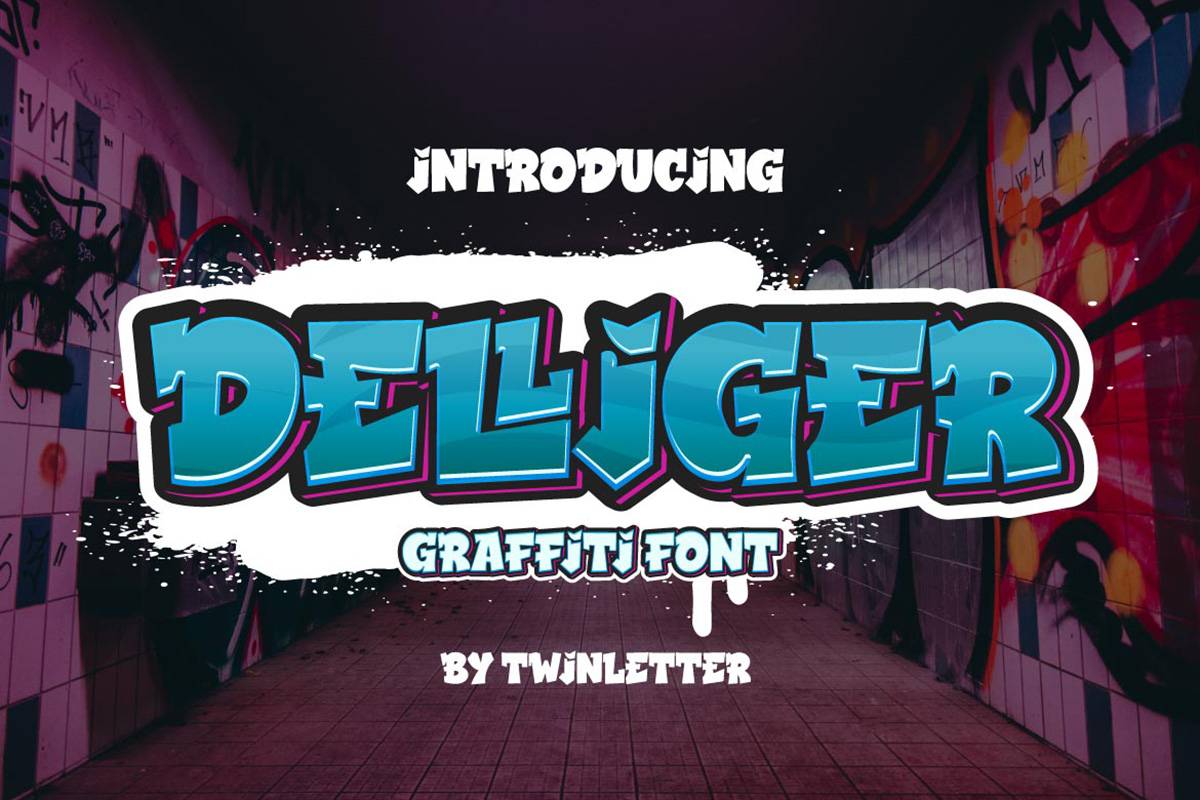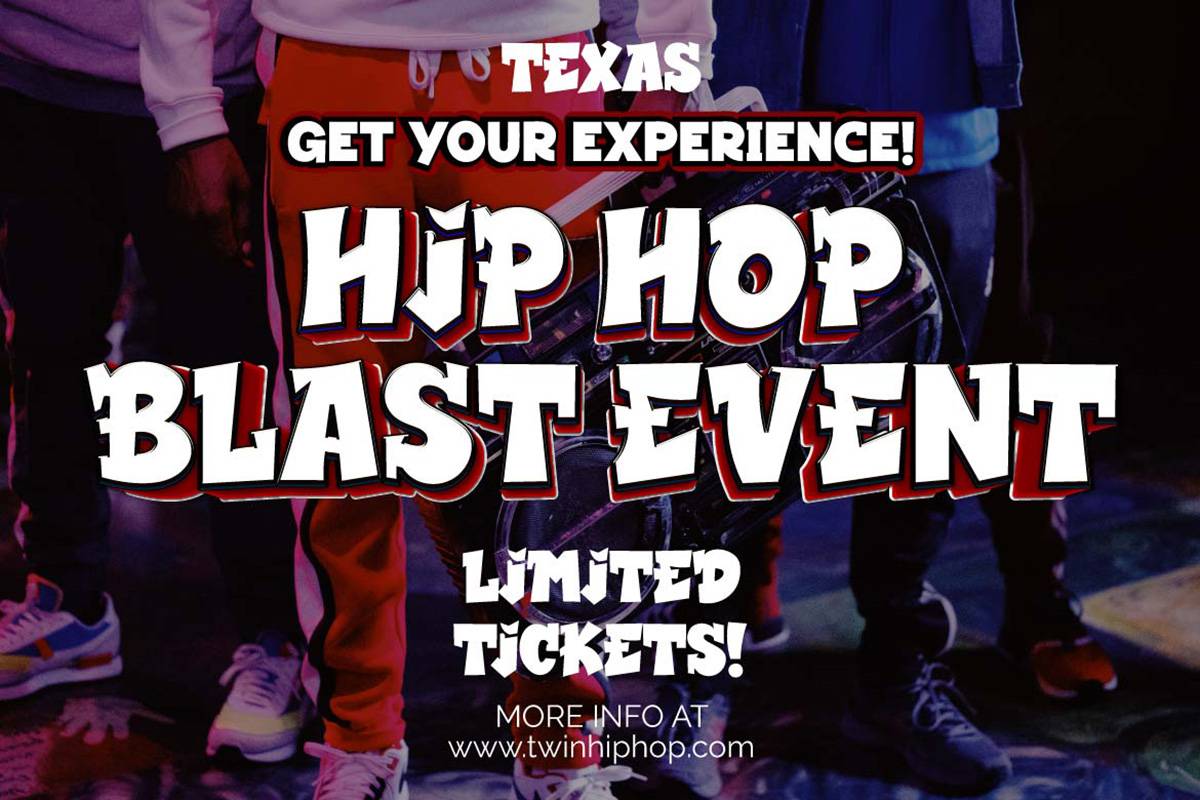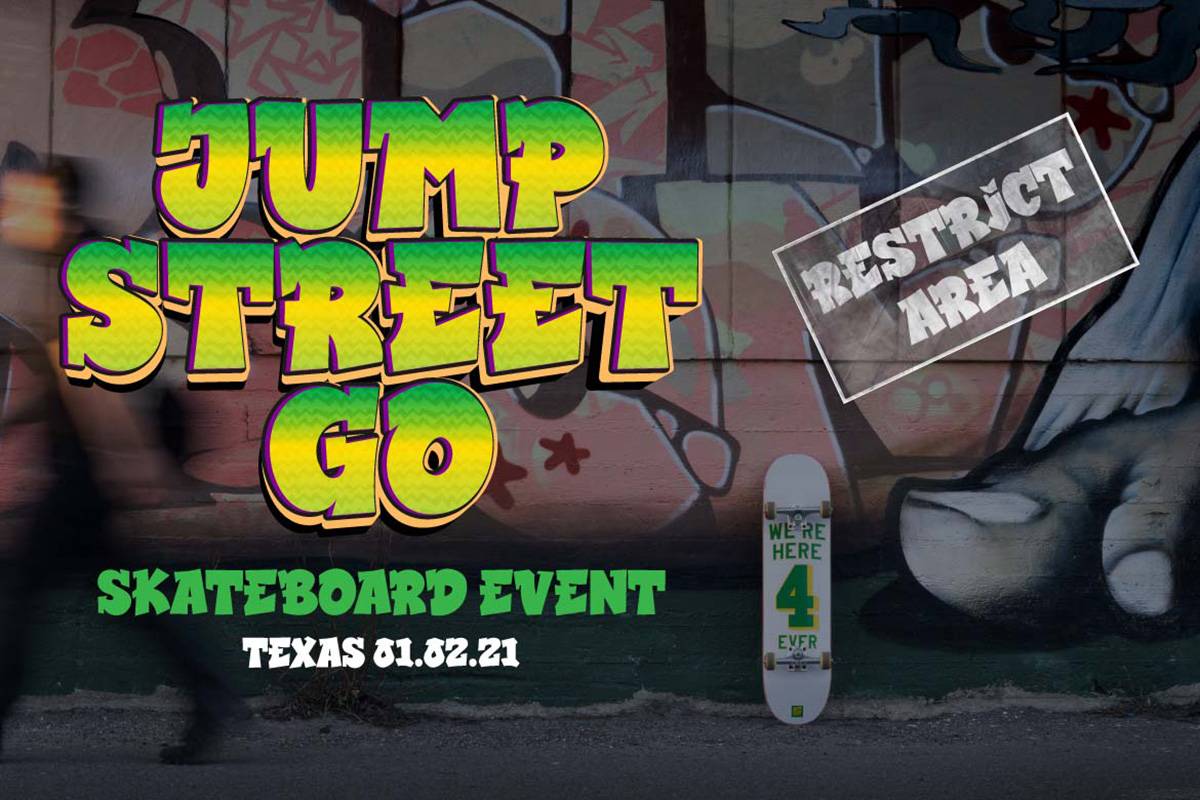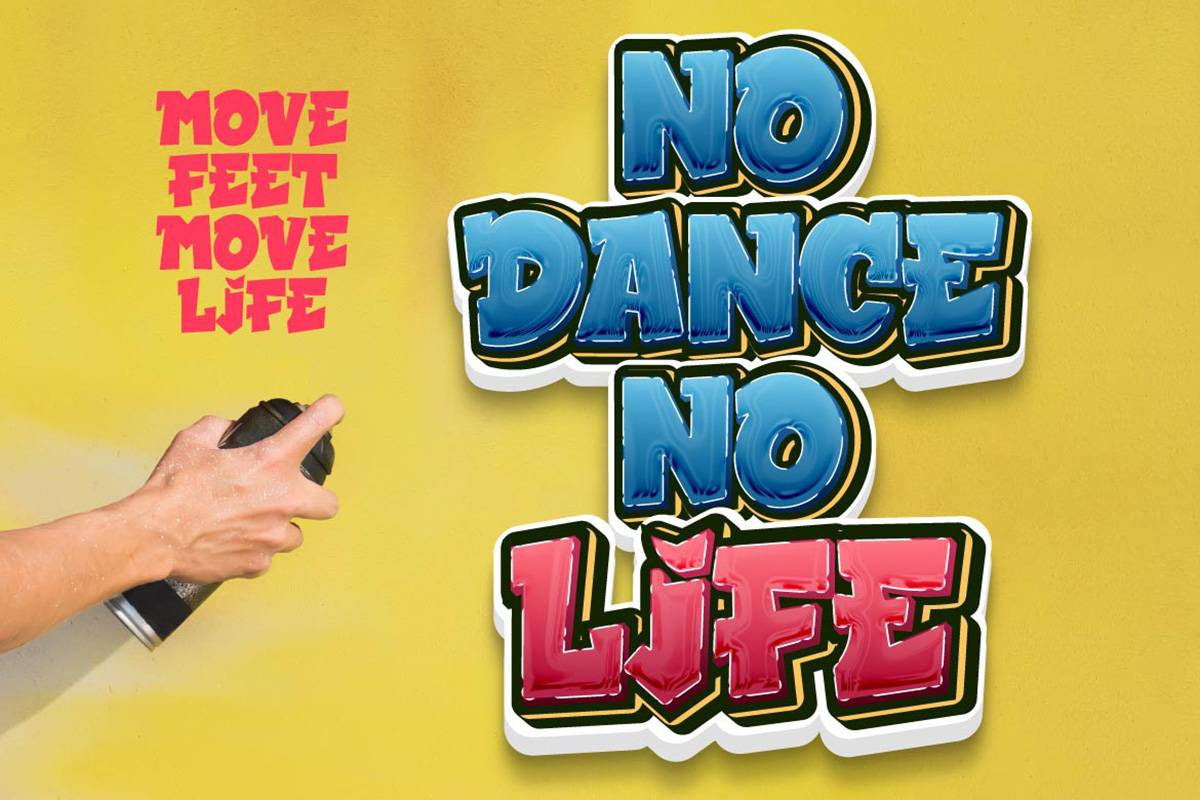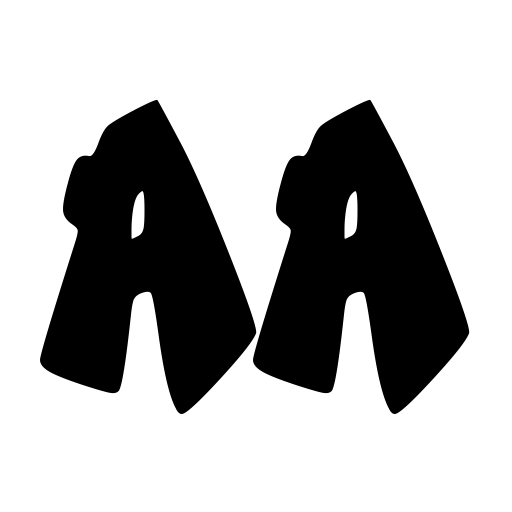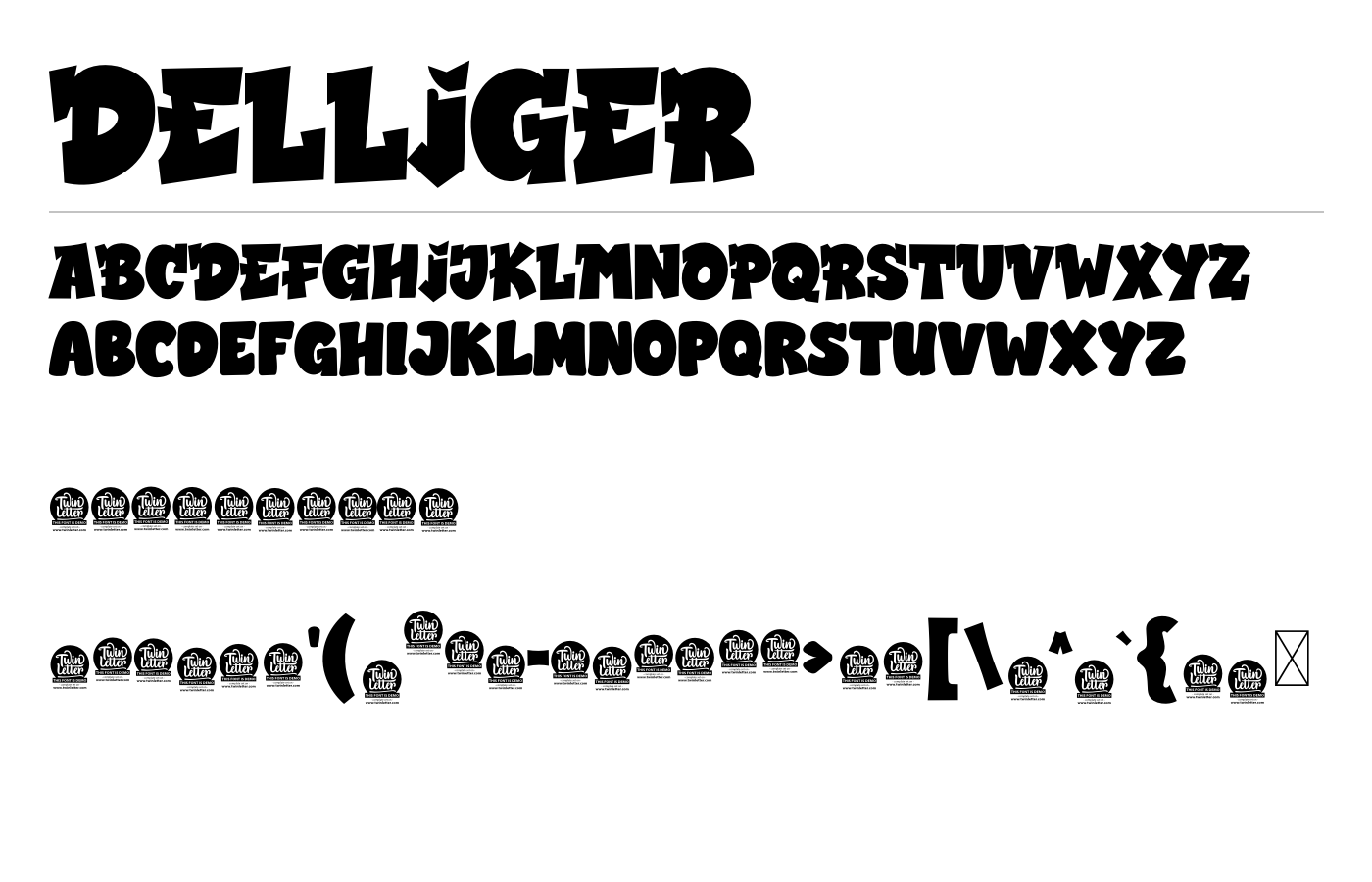
Delliger is a bold, playful display font with chunky, irregular letterforms that evoke a fun and energetic vibe. Its thick strokes, quirky shapes, and varying baseline create a lively, informal style perfect for eye-catching headlines, posters, or branding aimed at a youthful audience. This font works well where personality and impact are key, especially in creative, entertainment, or casual contexts.
Delliger Font
About Delliger Font